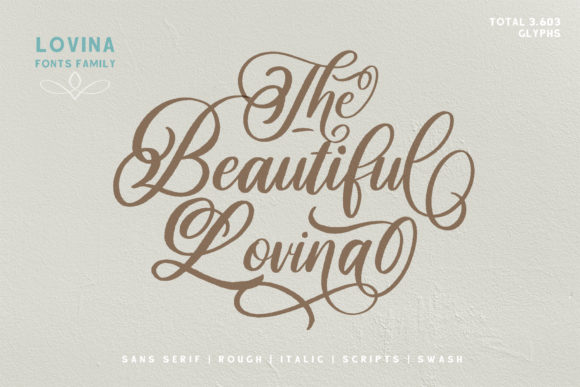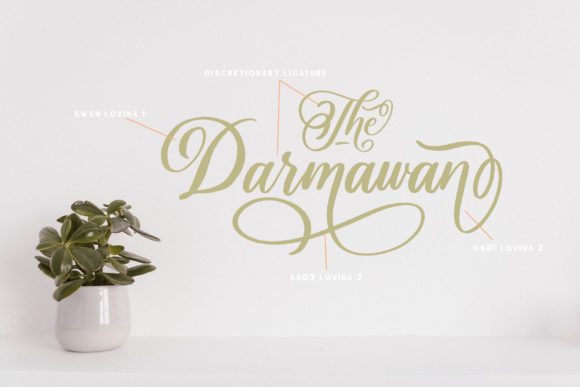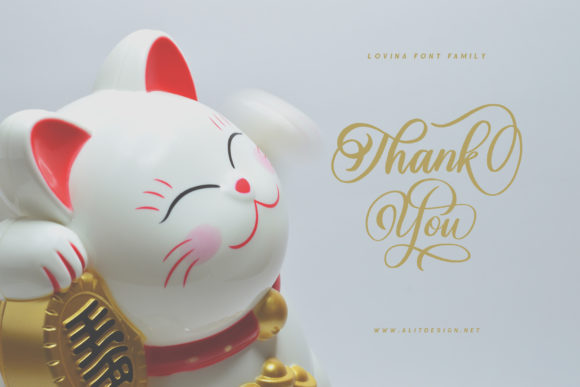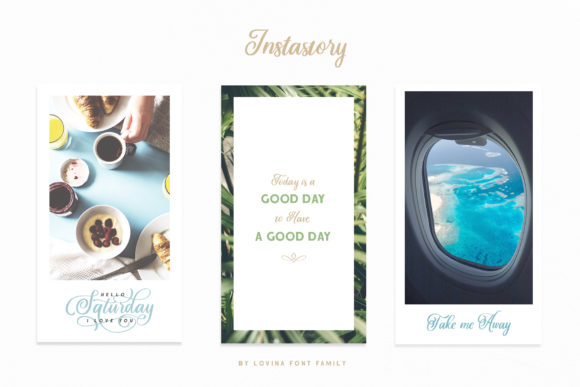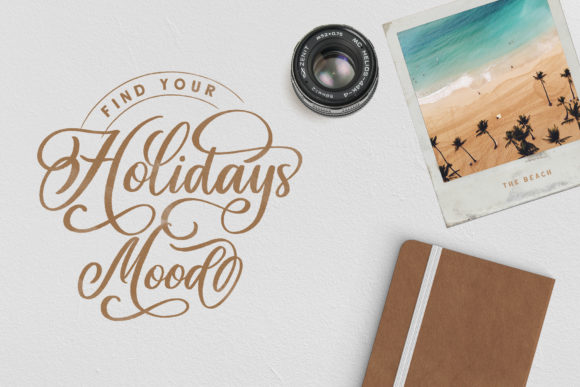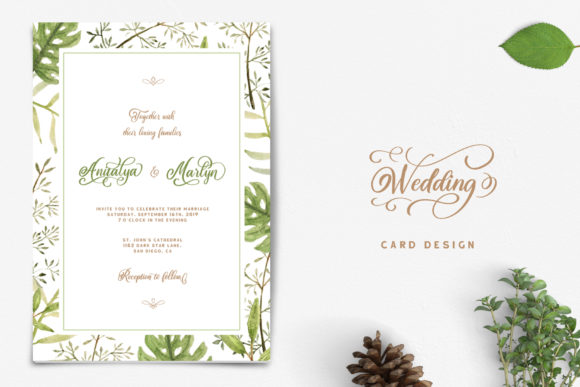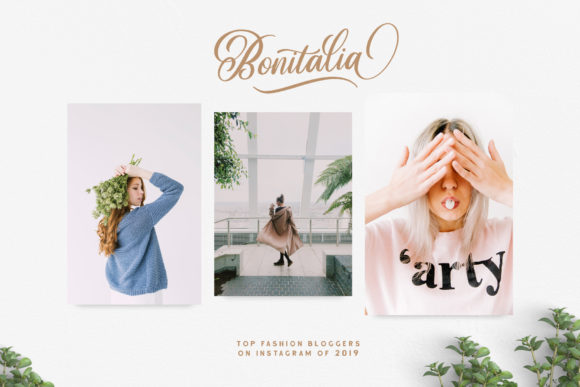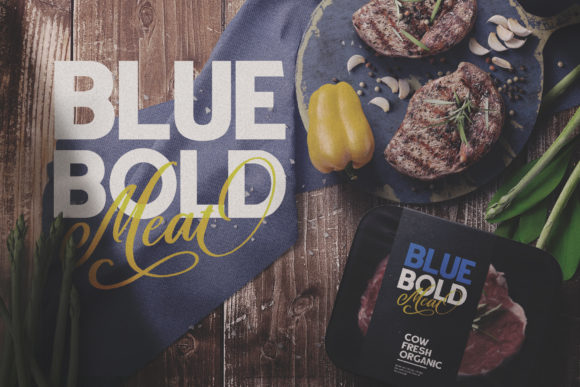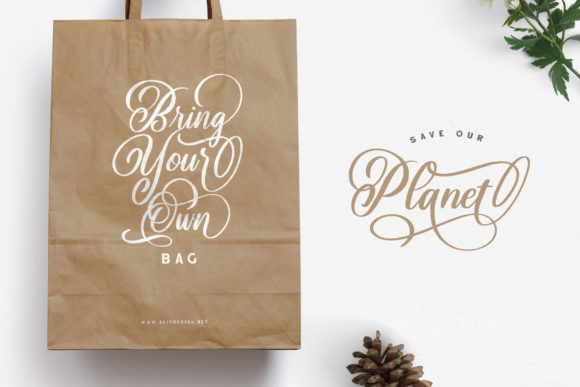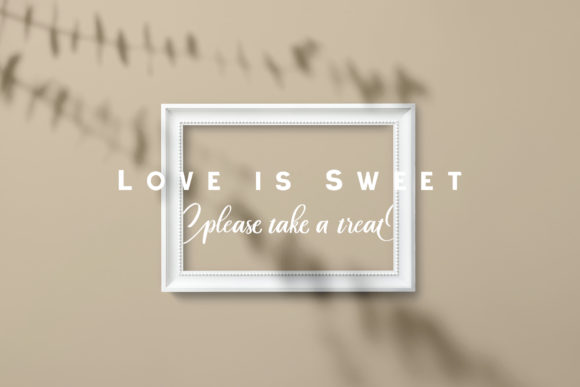
HomeScript FontsLovina Family Font Script Fonts Lovina Family Font FacebookTwitterPinterestWhatsApp Lovina Family Font Poster 2 Lovina Family Font Poster 3 Lovina Family Font Poster 4 Lovina Family Font Poster 5 Lovina Family Font Poster 6 Lovina Family Font Poster 7 Lovina Family Font Poster 8 Lovina Family Font Poster 9 Lovina Family Font Poster 10 Lovina Family Font Poster 11 About Lovina Family Font Lovina is a lovely handwritten font family that will help create unique and truly stunning crafting projects! DOWNLOAD NOW People also explored Minimalist Font Phantom Font Oktal Mono Hello Hearly Curling Cozy Font Rushing Font Grinch Font Geoffrey Font Pumpkin Pacth Font 169 0 TagsLovina Family Font Previous articleMelloner FontNext articleThe Minthline Script Font LEAVE A REPLY Cancel reply Comment: Please enter your comment! Name:* Please enter your name here Email:* You have entered an incorrect email address! Please enter your email address here Website: Save my name, email, and website in this browser for the next time I comment. Personal Use Free Stone Garden Personal Use Free Read more about this font Hair Thinned Personal Use Free Read more about this font Klotee Personal Use Free Read more about this font Cottage Personal Use Free Read more about this font BLOG Free Fonts Risk: Why Free Fonts Can Be Dangerous for Designers Free Fonts Risk: Why Free Fonts Can Be Dangerous for Designers Using free fonts is a common practice in web and graphic design. However, the... Exploring Font Trends Free vs Paid Fonts: Why Investing in Premium Fonts Is Worth It The 10 Best Handwriting Fonts to Add Personality to Your Designs